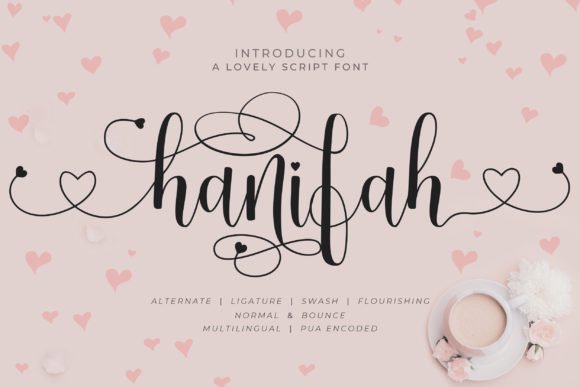
The Art of Elegant Typography: Unveiling the Hanifah Font
Have you ever found yourself staring at a blank page, struggling to put into words the emotions and thoughts swirling in your mind? For designers, this moment is all too familiar. It’s the spark that sets the creative process ablaze, and for those who crave a touch of elegance, it’s often the Hanifah Font that brings their vision to life.
This beautiful font is more than just a collection of letters – it’s a canvas waiting to be filled with love, gratitude, and inspiration. With its flowing lines and stunning alternates, the Hanifah Font is perfect for wedding invitations, thank you cards, and any design that demands a handwritten touch.
For designers, the Hanifah Font is a valuable tool that adds a touch of sophistication to their work. Its versatility and unique features make it a go-to choice for logos, business cards, and quotes, allowing creatives to bring their imagination to life in a way that’s both beautiful and meaningful.
Hanifah Font Key Features
- Font Family: Hanifah
- Unique Characteristic: Distinctive, elegant script with intricate details and flourishes
Hanifah Font Review
I recently had the chance to work with the Hanifah font, and I must say it’s an interesting mix of traditional and modern elements. ✨ One thing that stands out is its beautiful, flowing script style, which is perfect for creating elegant and sophisticated designs. The font’s intricate details and ornate flourishes add a touch of luxury, making it ideal for high-end branding and packaging.
Another strength of the Hanifah font is its versatility. ✨ It comes in a range of weights, from light to bold, allowing designers to choose the perfect tone for their project. The font also works well in both digital and print formats, making it a great choice for designers who need to create multi-platform designs.
While the Hanifah font has many strengths, there are some limitations to consider. ⚠️ One of the main issues is its lack of clarity at smaller font sizes. The intricate details and flourishes can make the text difficult to read, especially for those with vision impairments. Additionally, the font’s complexity can make it challenging to pair with other fonts, limiting its versatility.
Overall, I think the Hanifah font is a great choice for designers who want to create elegant and sophisticated designs. While it may have some limitations, its unique style and versatility make it a valuable addition to any designer’s toolkit.
- Beautiful, flowing script style
- Range of weights, from light to bold
- Versatile and works well in digital and print formats
- Lack of clarity at smaller font sizes
- Complexity can make it challenging to pair with other fonts
Here are some tips to get the most out of Hanifah Font:
- Use Hanifah Font in combination with other fonts to create a visually appealing design.
- Consider using Hanifah Font for headings and titles to add a touch of elegance.
Here are some common use cases for Hanifah Font:
- Editorial and magazine design.
Alternatives to Hanifah Font
Playfair Display is a luxurious and elegant serif font. It’s perfect for creating a high-end and sophisticated look. Use it for magazine covers, wedding invitations, or luxury brand advertisements.
Comparison to Hanifah Font: While Hanifah Font is a modern and minimalist script, Playfair Display is more ornate and traditional. Hanifah Font is ideal for clean and simple designs, whereas Playfair Display adds a touch of luxury and sophistication.
Great Vibes is a modern and elegant script font. It’s perfect for creating a unique and eye-catching look. Use it for branding, packaging, or advertising campaigns.
Comparison to Hanifah Font: Great Vibes has a similar feel to Hanifah Font, but with a more vintage and retro vibe. While Hanifah Font is more minimalist, Great Vibes has a bolder and more expressive personality.
Carolyna Pro is a modern and elegant script font. It’s perfect for creating a sophisticated and high-end look. Use it for luxury branding, packaging, or advertising campaigns.